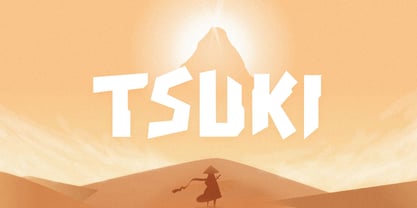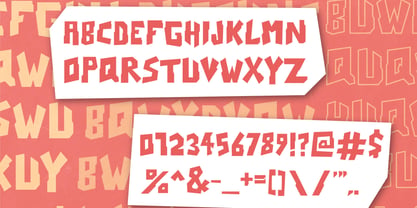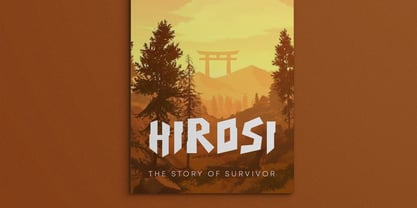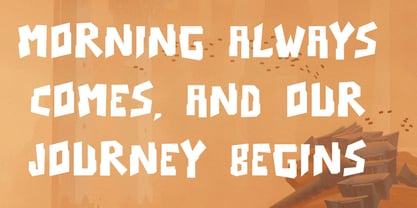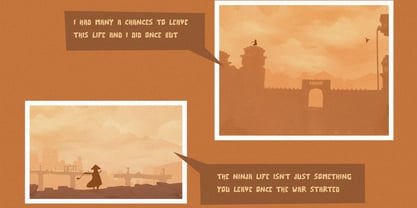
CCS Tsuki
par Creative Corner Studio
La famille de polices CCS Tsuki a été conçue par Kurt Harahap et publiée par Creative Corner Studio. CCS Tsuki contient 1 styles. En savoir plus sur cette famille
Tsuki is a contemporary display sans-serif typeface that draws inspiration from the sharp, dynamic energy of Japanese manga, anime culture, and modern video game aesthetics. This versatile font is perfect for a variety of applications, including comics, games, and more. Whether you're creating an eSports team logo, designing a captivating manga cover, or crafting high-impact streetwear merchandise, Tsuki delivers an instant punch of modern cyberpunk flair combined with an oriental display style. With its unique character and striking presence, Tsuki is ideal for branding, web design, and editorial projects that require a bold and engaging visual identity.